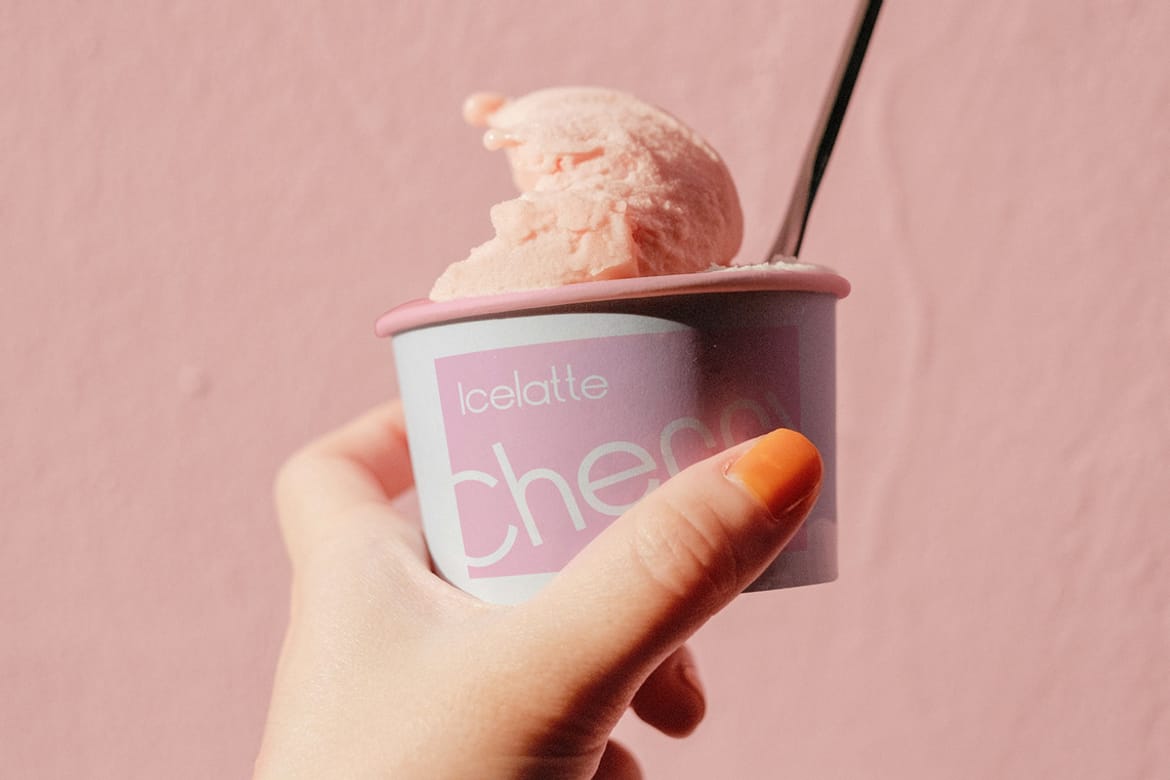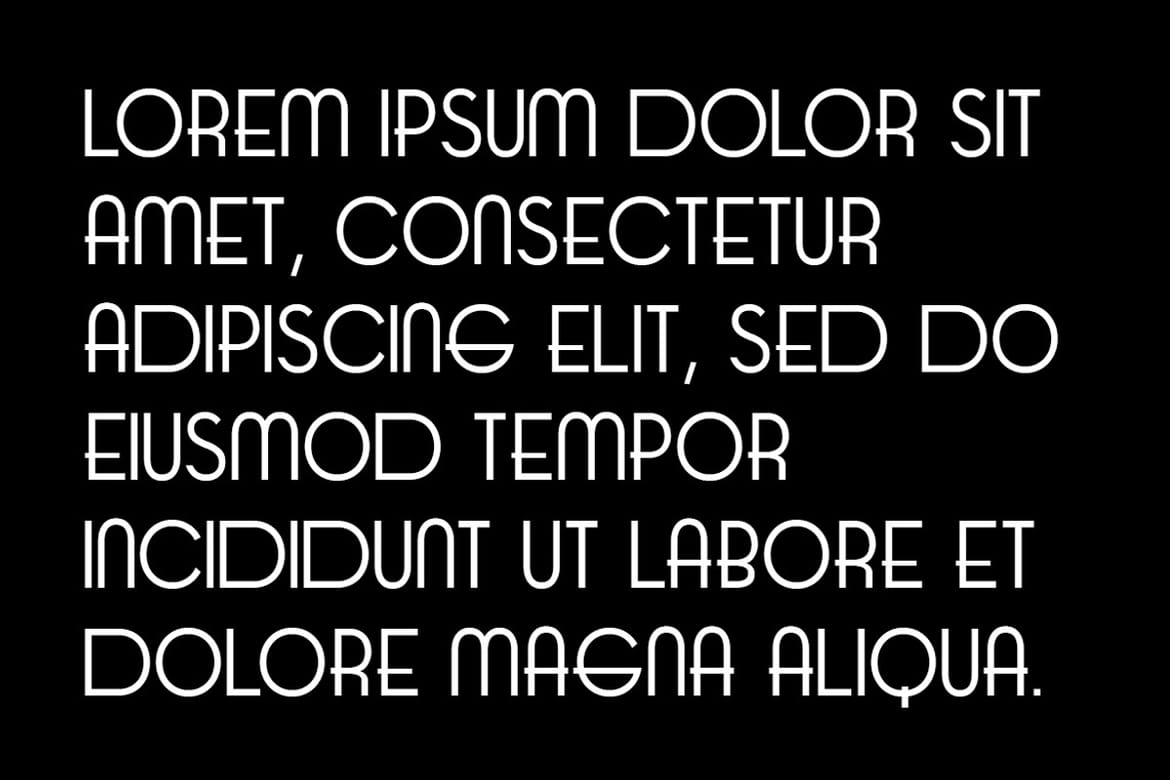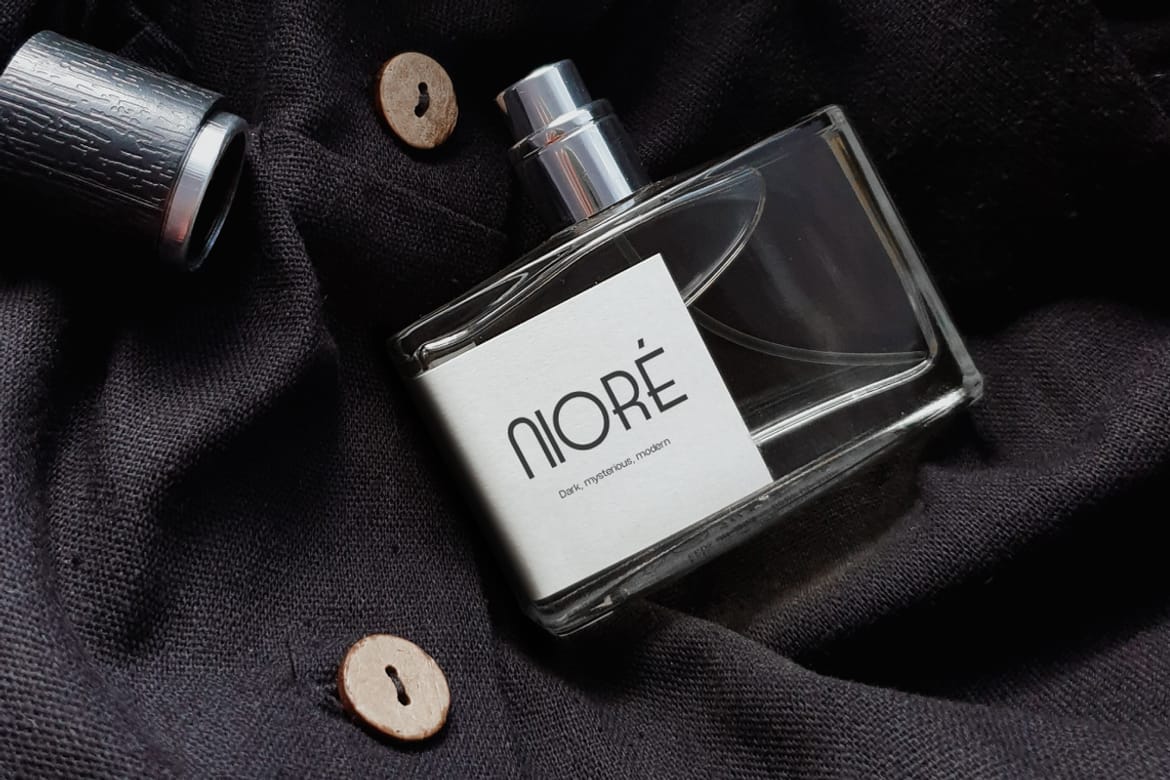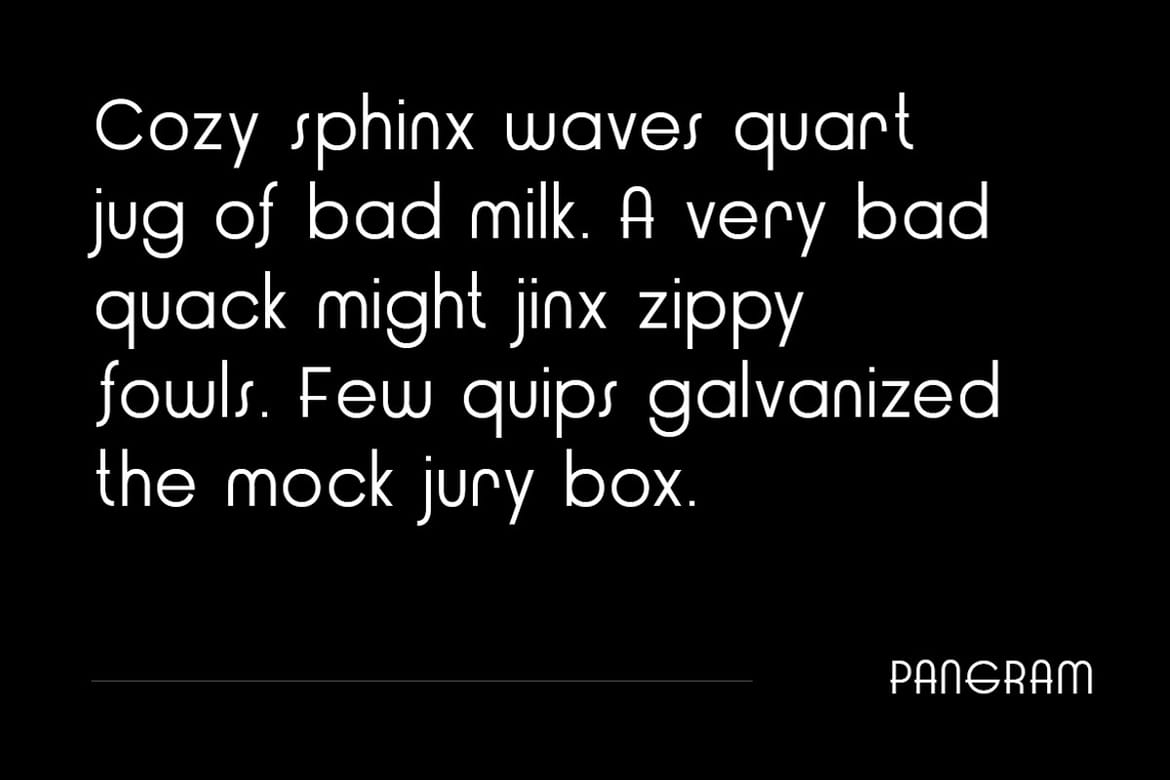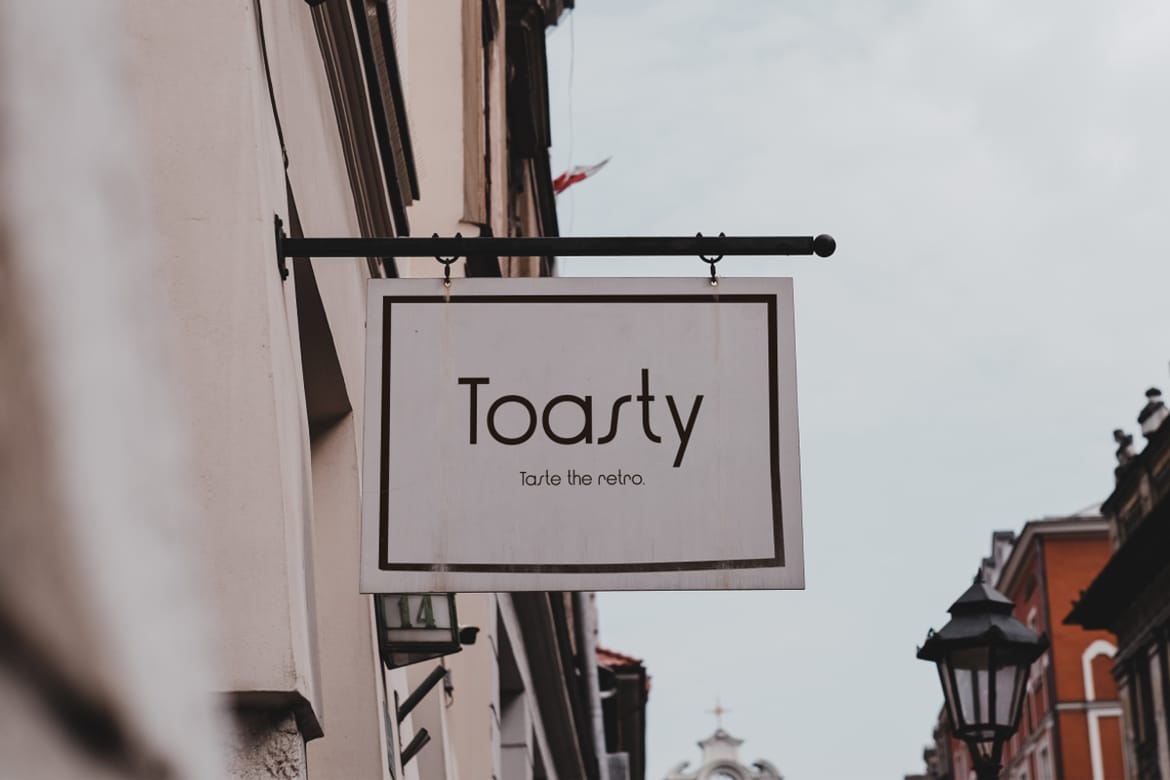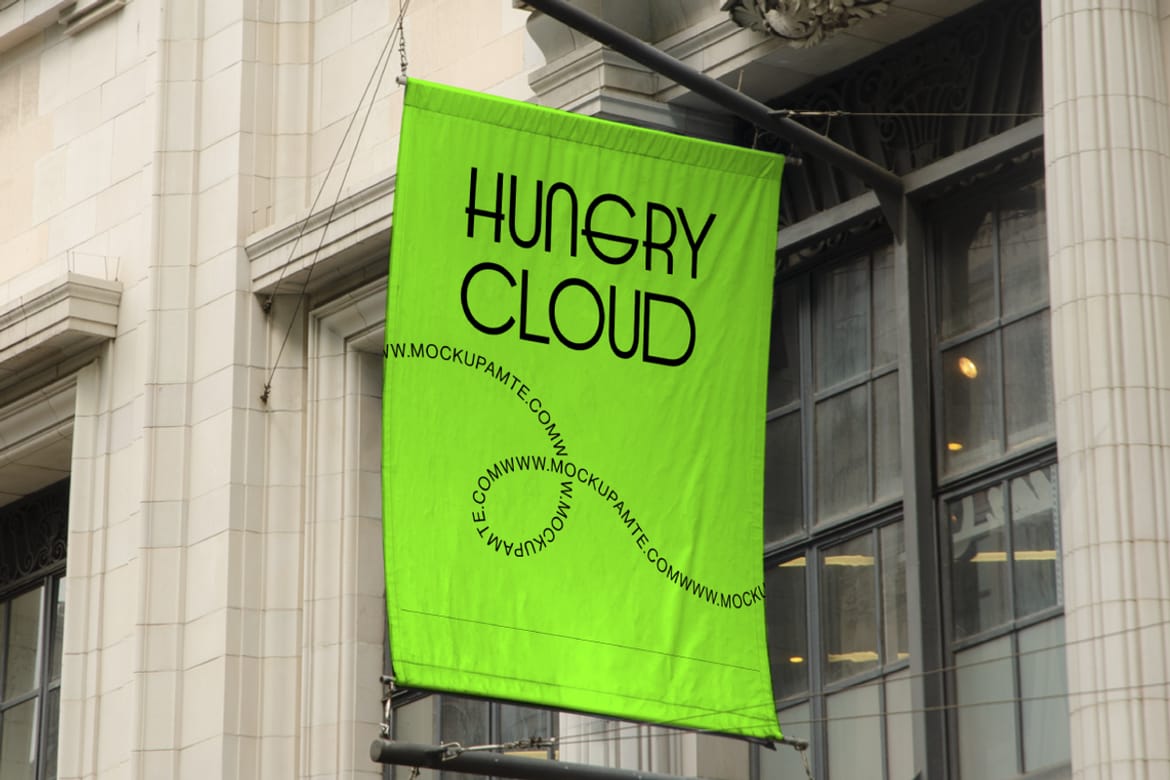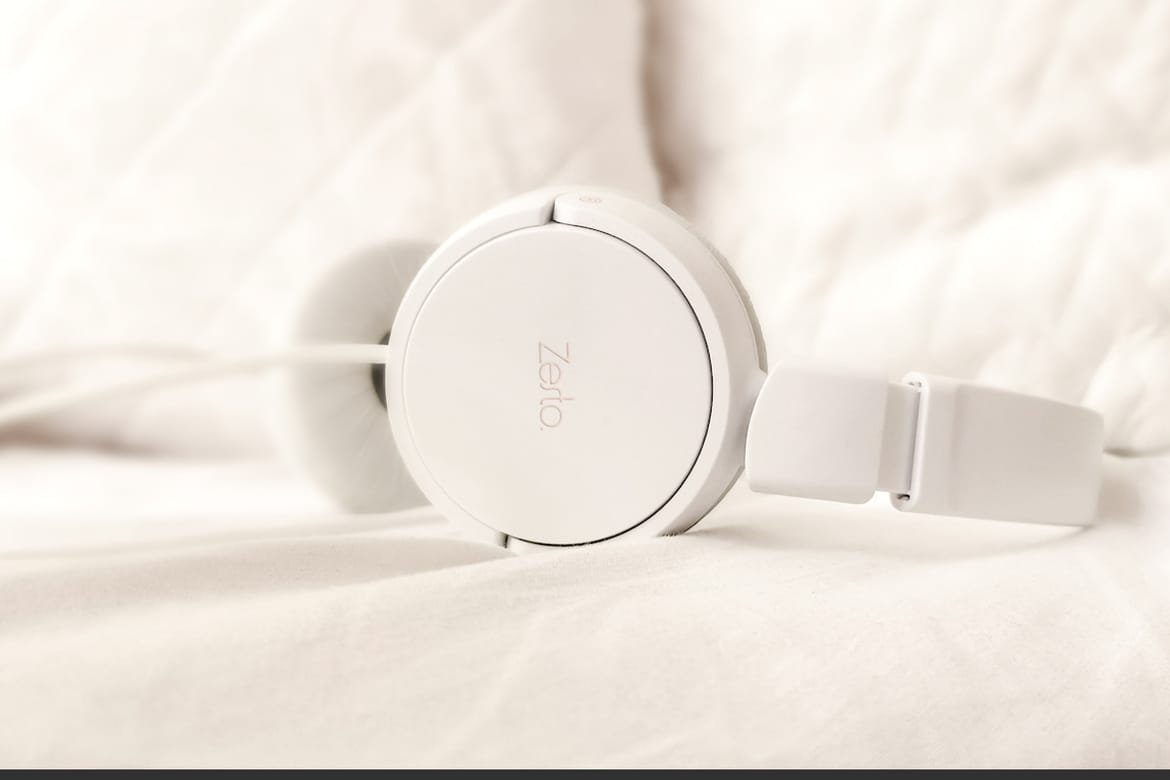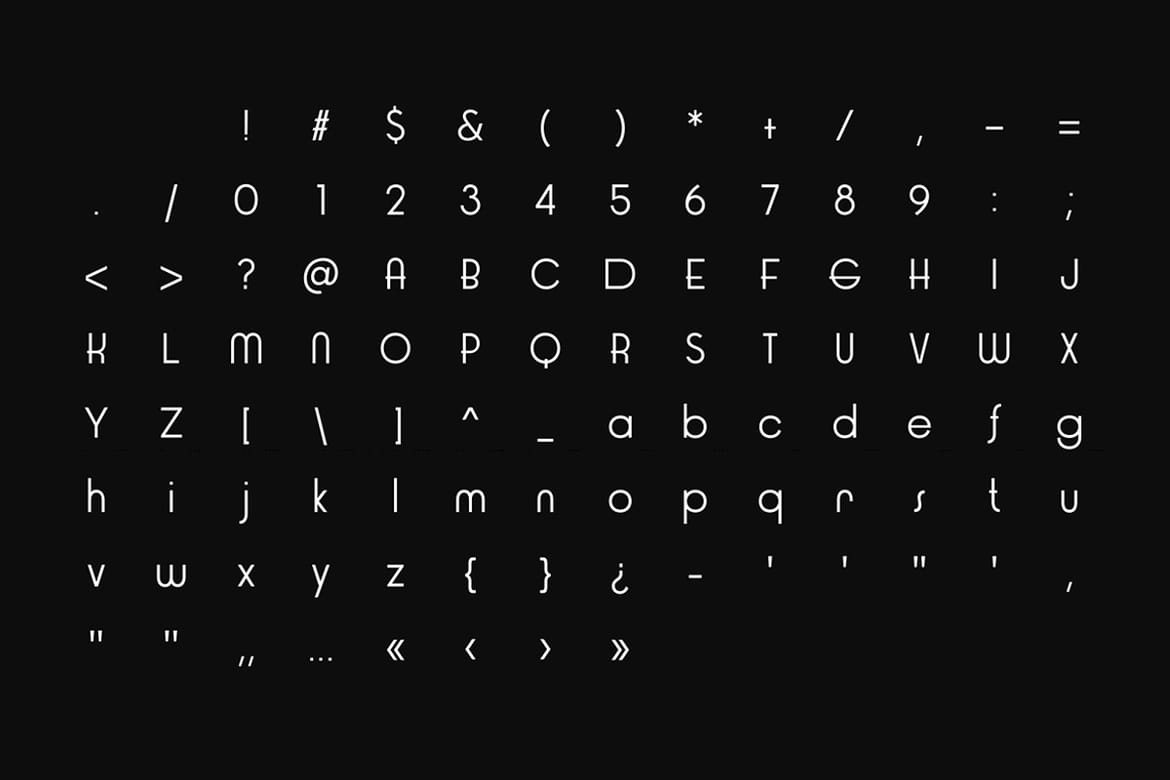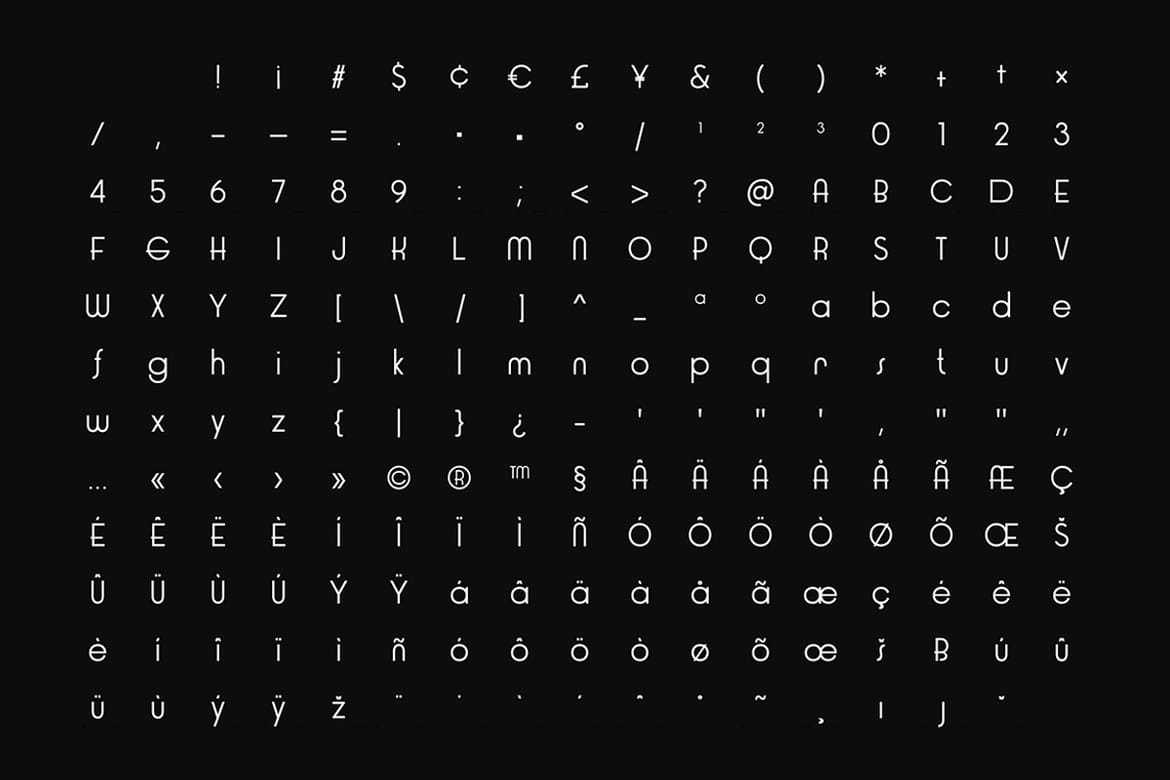
Rigden - Modern and minimal Sans-serif Font
Rigden is a modern sans-serif typeface crafted for elegance, clarity, and timeless sophistication. With its smooth letterforms, balanced proportions, and subtle curves, Rigden is ideal for editorial design, fashion branding, luxury packaging, and stylish digital interfaces.
Designed to reflect the grace and glamour of fashion culture, Rigden includes extended Latin support and a full set of accented characters, making it suitable for multilingual applications.
Multilingual Font
Uppercase letters
Lowercase letters
200+ Glyphs
Numbers
Punctuations
- Extended multilingual support
- Smooth elegant letterforms